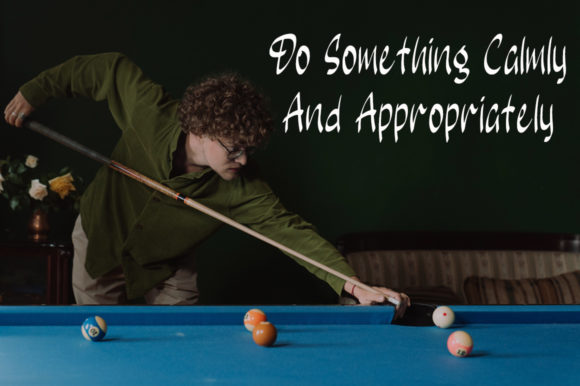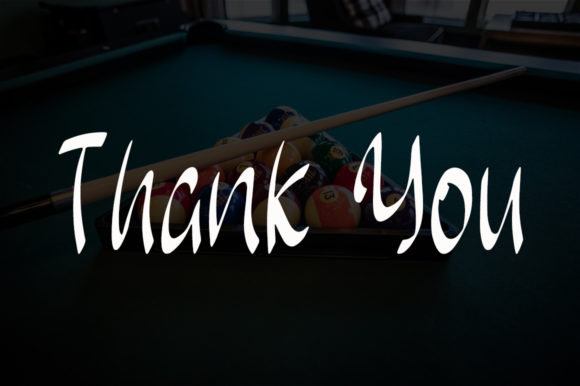
About Eight Ball Font
Eight Ball is a sweet and friendly handwritten font. Its natural and unique style makes it incredibly fitting to a large pool of designs. The only limit is your imagination!